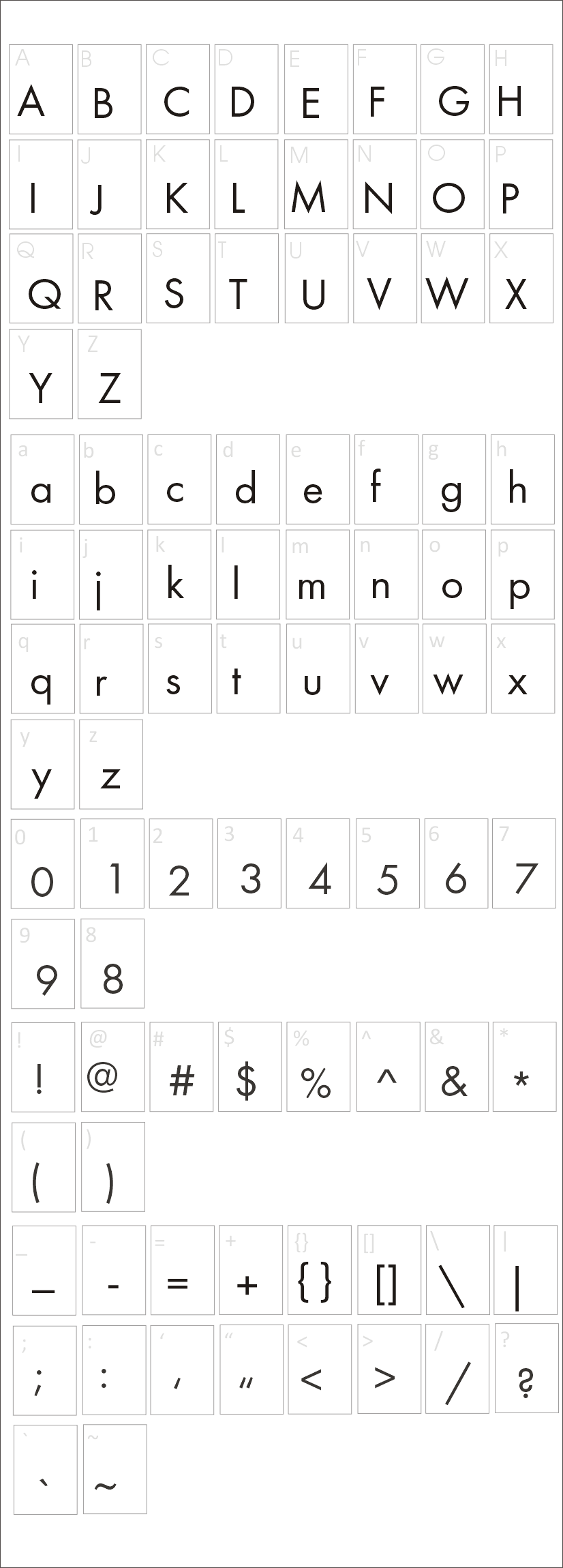
Name | Futura Font Family |
Font Designer: | Paul Renner |
Release Year: | 1927 |
Category: | Sans-serif, Geometric |
Futura is a renowned font family known for its clean lines, geometric shapes, and modern aesthetic. Designed by Paul Renner, Futura is a versatile typeface that is widely used in a variety of applications from branding and signage to print and digital media.
Key Features of Futura Font Family:
- Geometric Design: Futura’s letterforms are based on geometric shapes, creating a strong and consistent visual impact.
- Modern and Versatile: The font’s contemporary style and versatility make it suitable for a wide range of projects, from branding and advertising to editorial design and web development.
- Exceptional Legibility: The font’s clear and balanced letterforms ensure easy reading on various screen sizes and devices.
- Wide Character Support: Futura supports a broad range of languages and characters, making it a global-friendly choice.
- Multiple Weight Options: The font family includes various weight options (e.g., Regular, Bold, Italic), allowing you to find the perfect style for your specific needs.
Ideal Use Cases for Futura Font Family:
- Branding: Use Futura for logos, business cards, and other branding materials to create a modern and professional identity.
- Signage: Futura is often used for signage and wayfinding systems due to its excellent legibility and clear design.
- Print Design: Incorporate Futura into brochures, flyers, and other print materials to add a touch of modernity and sophistication.
- Web Design: Use Futura for headlines, body text, and other typographic elements to enhance your website’s visual appeal.
- Corporate Presentations: Futura’s clean and modern design can help make your presentations more impactful.
Futura Font Family is a versatile and timeless typeface that can elevate your projects’ visual appeal. With its geometric design, modern aesthetic, and wide character support, Futura is a valuable asset for designers and businesses seeking a refined and professional font.